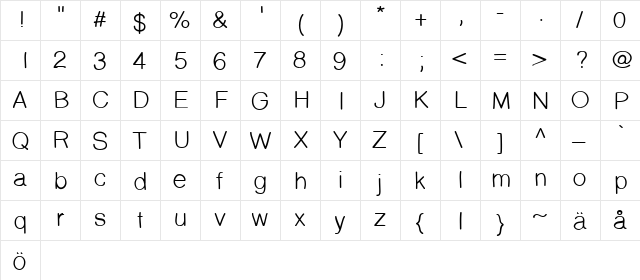
PrinsesstartaDEMO Medium
| Foundry | Shara Weber |
| Designer | Shara Weber |
Design Context for PrinsesstartaDEMO Typeface
PrinsesstartaDEMO offers clean, dependable letterforms without strong stylistic allegiance, making it a practical choice for designers who need flexibility.